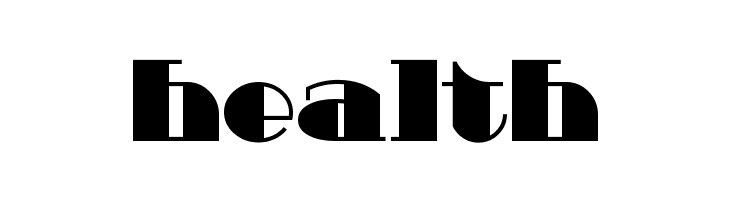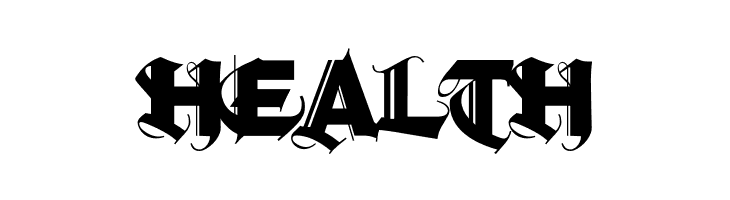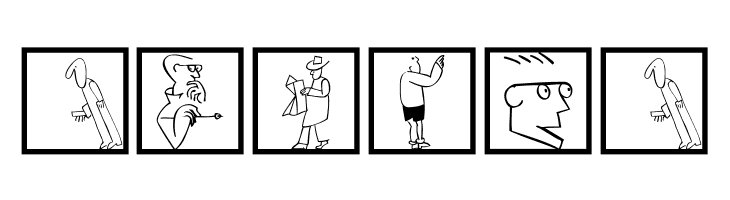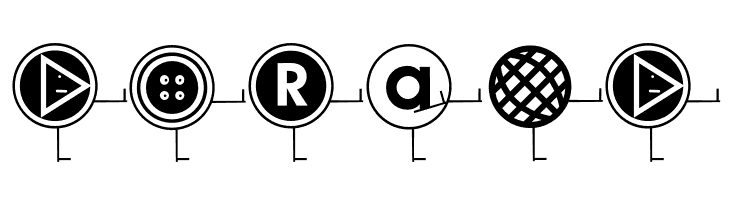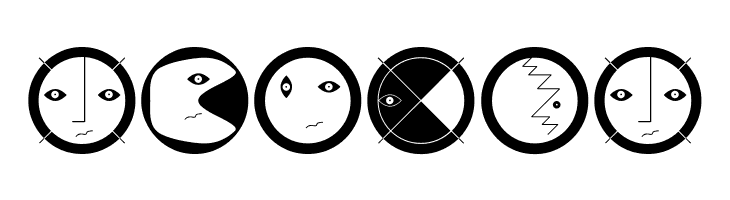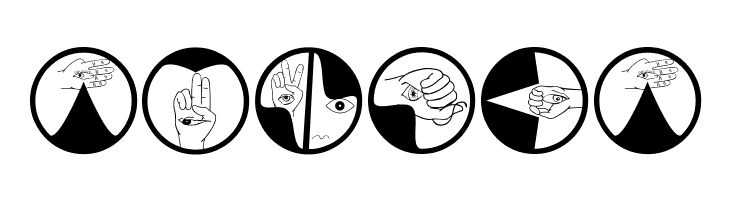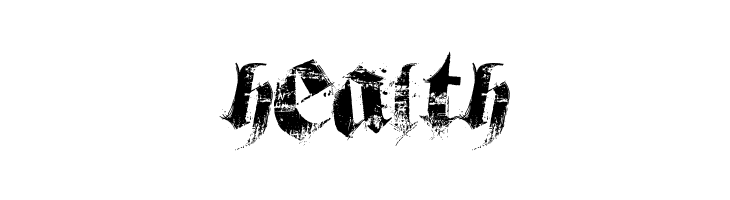
• hardcorium
A bold, distressed gothic font with a grunge texture.
• Hats II
A modern, geometric font with characters enclosed in bold frames, ideal for tech-themed designs.
• Haunt AOE
A spooky, hand-drawn font with jagged edges, perfect for eerie themes.
• HeadfeeterOTwo
A decorative and abstract font with characters in circular shapes, featuring geometric patterns.
• HeadImprovisations
A decorative and abstract font with characters in circular shapes, featuring bold and artistic designs.
• HeadImprovisationsTwo
An abstract, artistic font with characters enclosed in circular shapes, featuring unique geometric and illustrative designs.
• HeadsGallery
Hand-drawn cartoon heads and figures in a playful, illustrative style.
• Heavy Tripp NF
A bold, high-contrast font with geometric and modern elements.
• HeavyTrippNF
A bold, geometric font with unique curves and angles.
• Hel Grotesk Gothiq Black